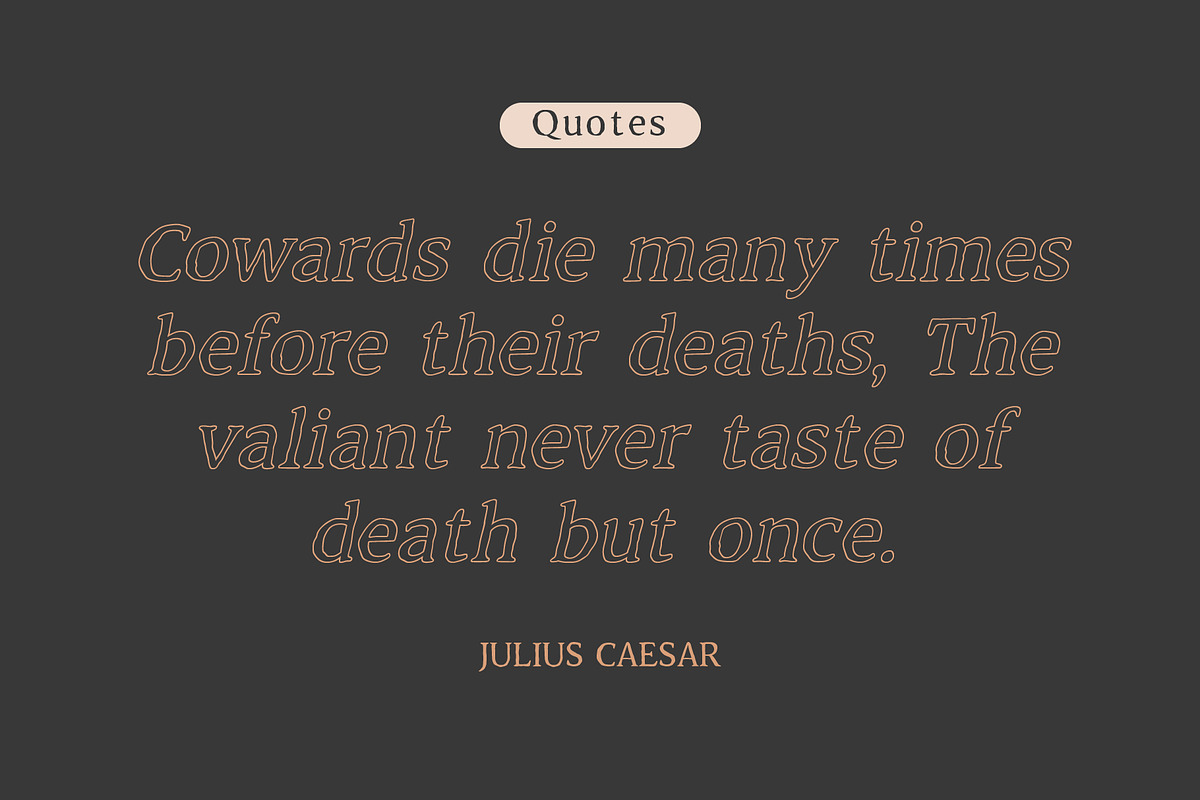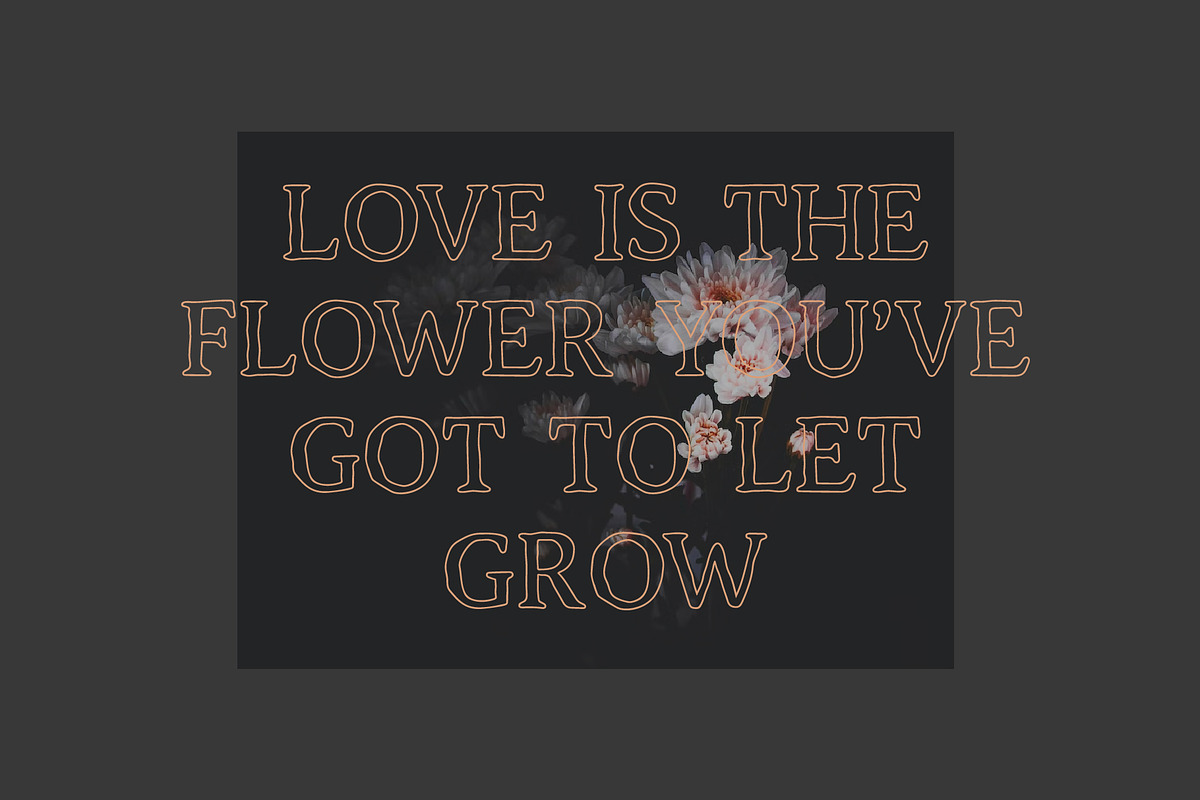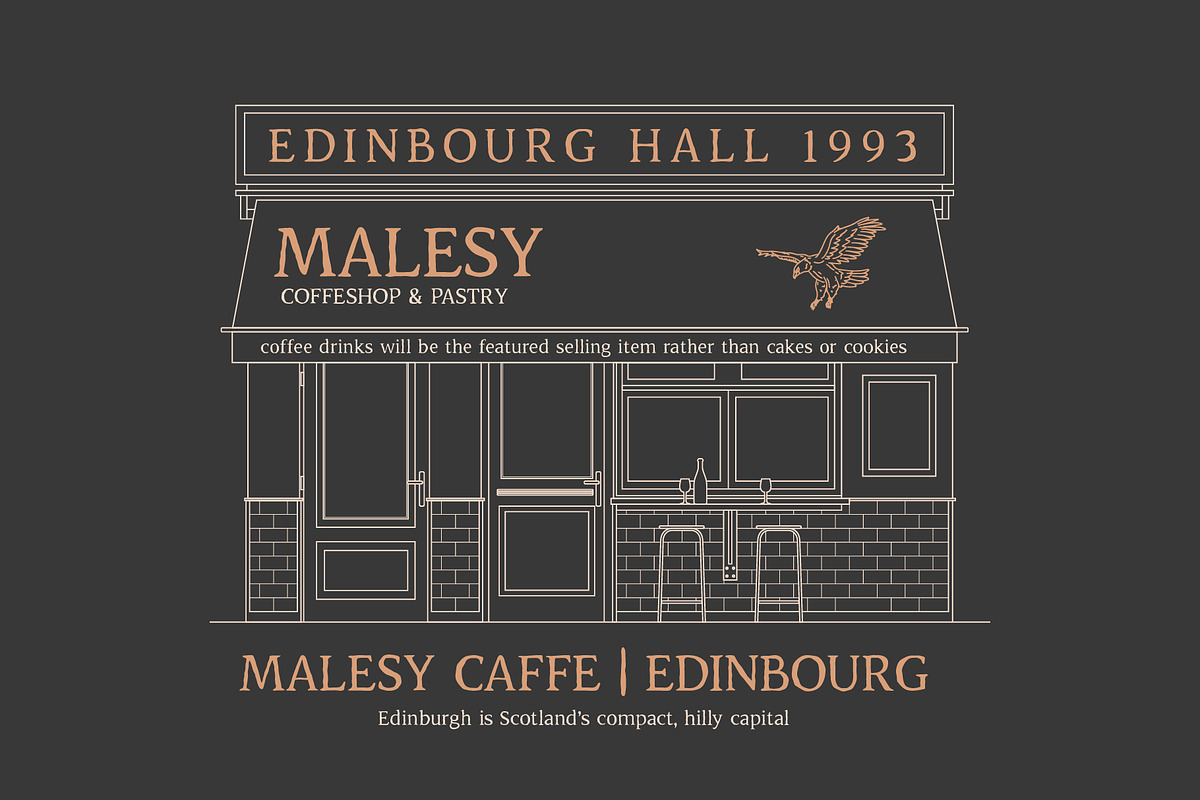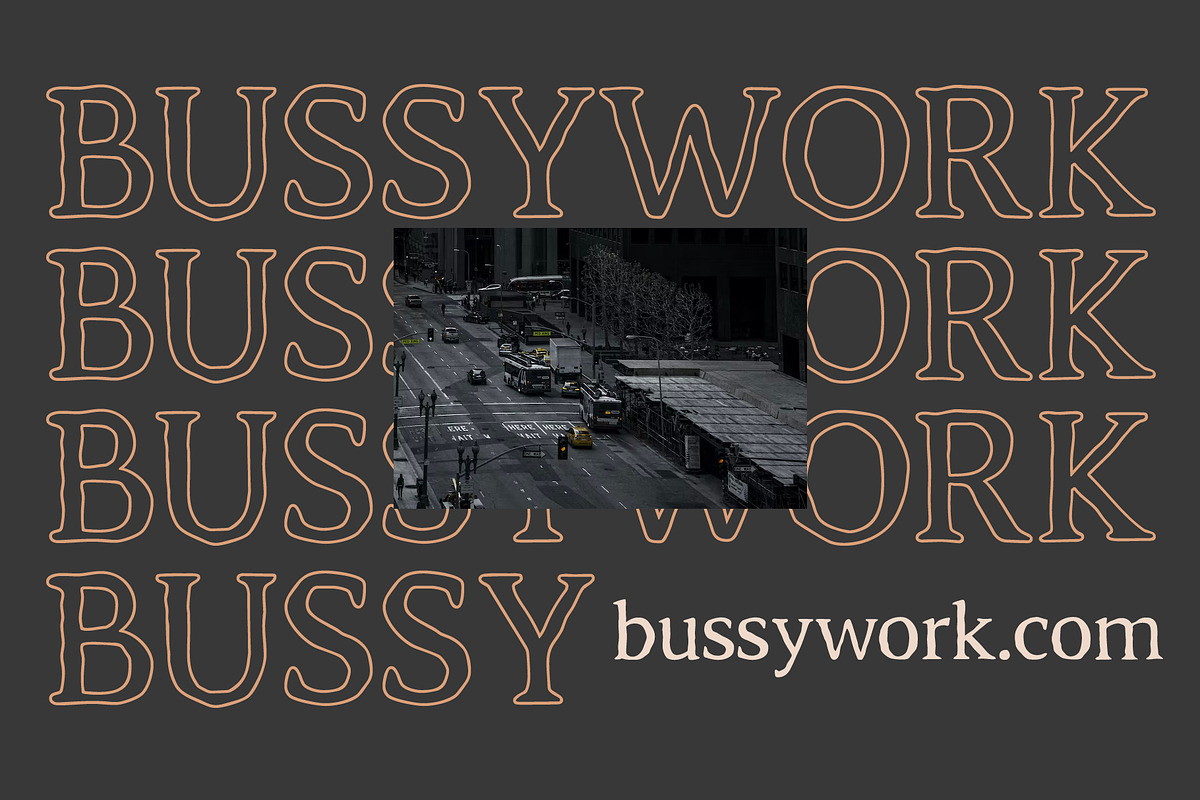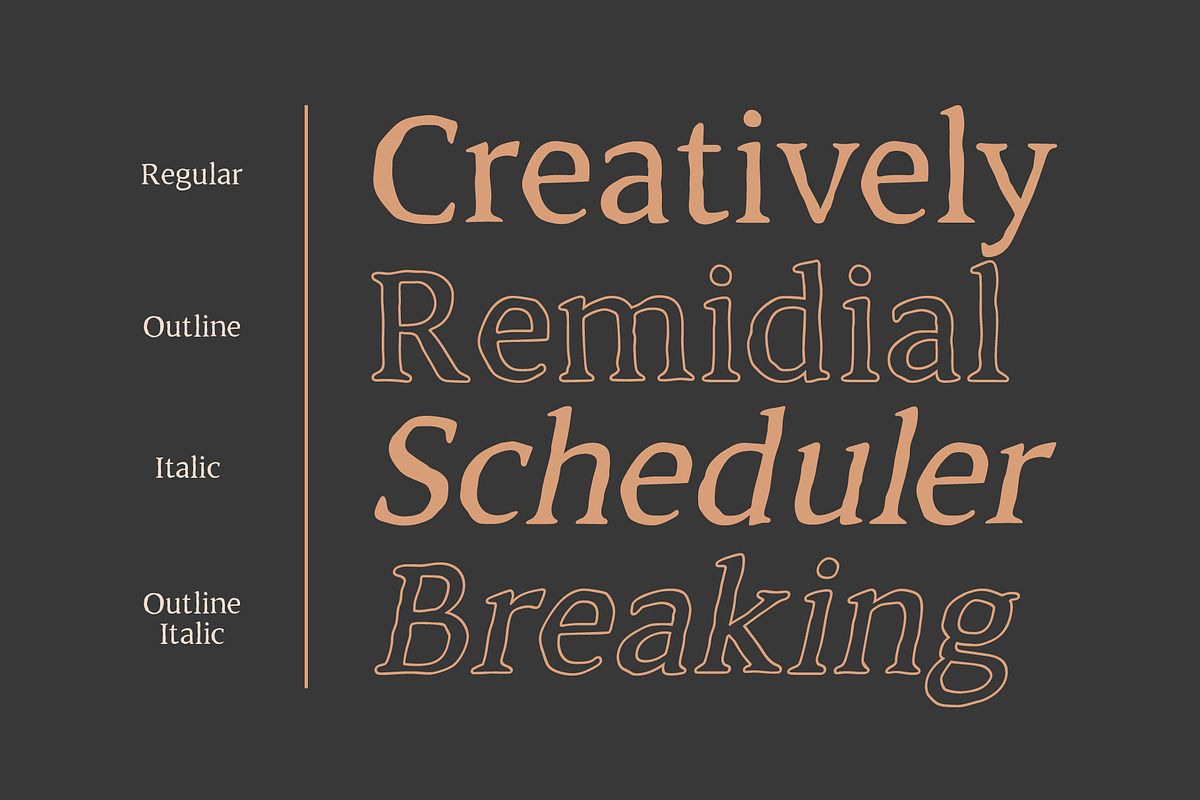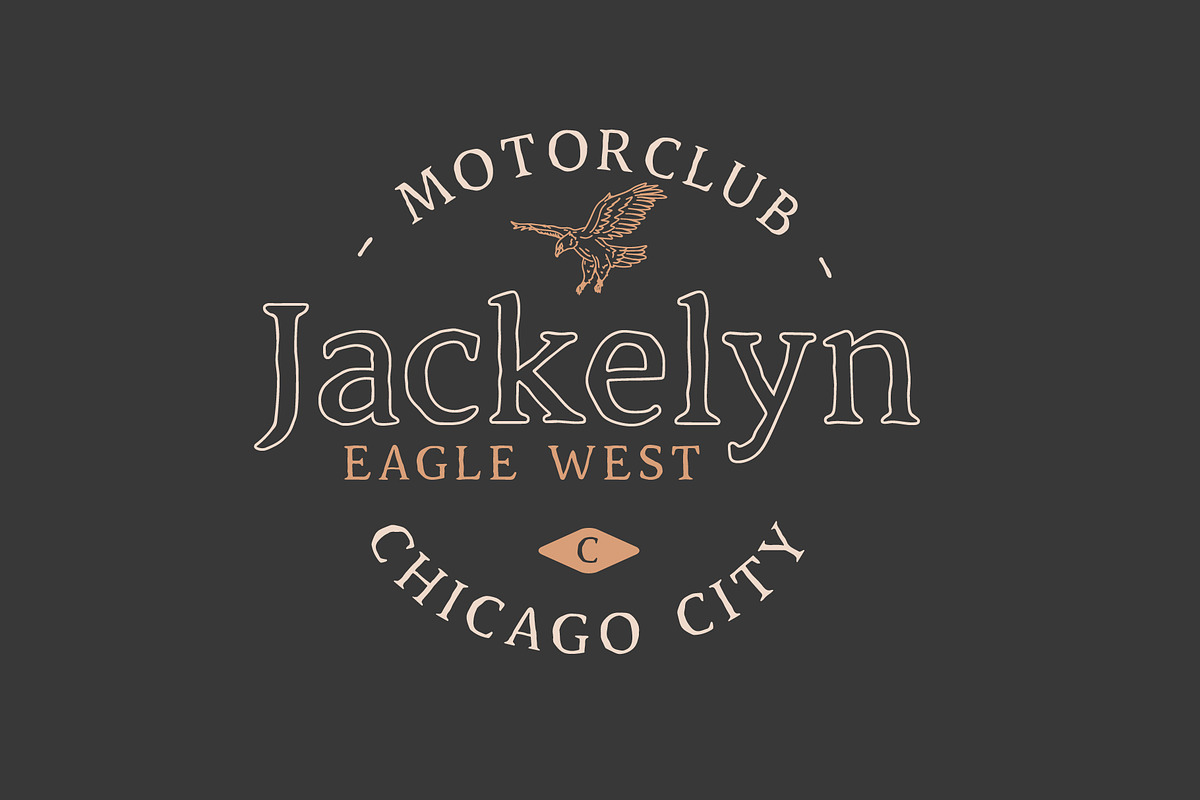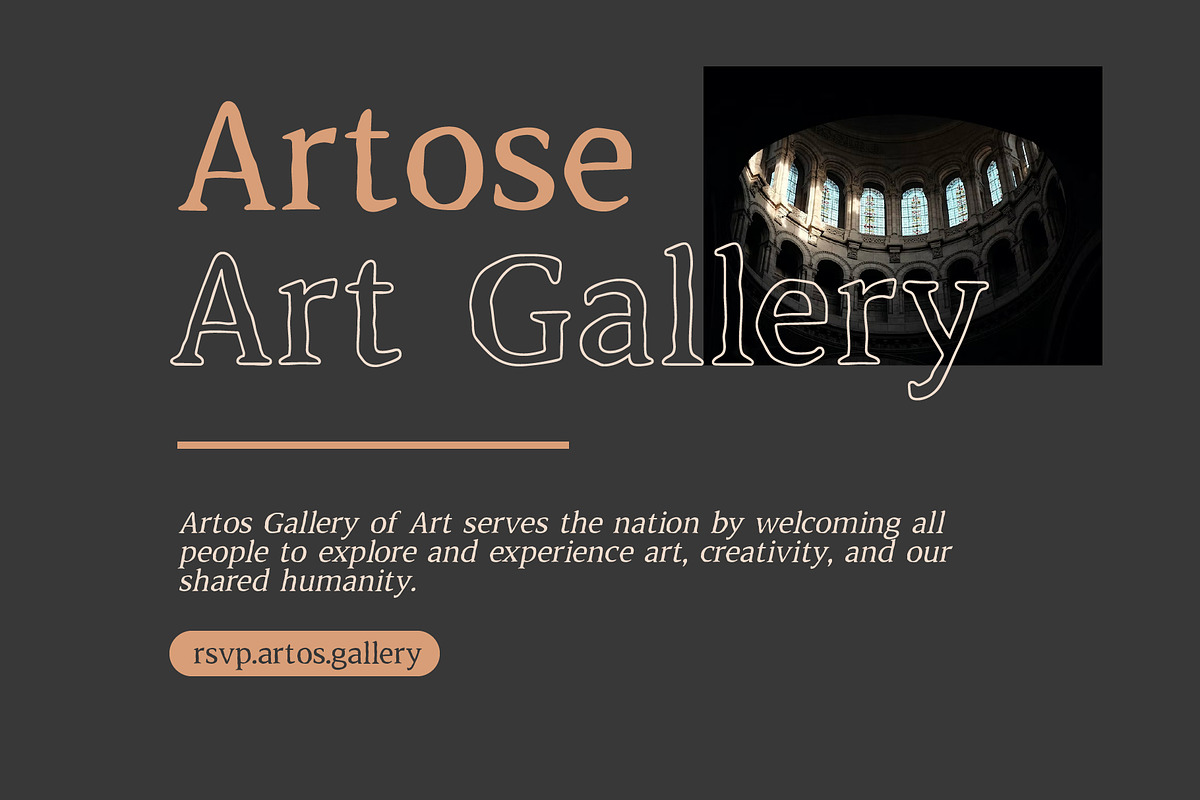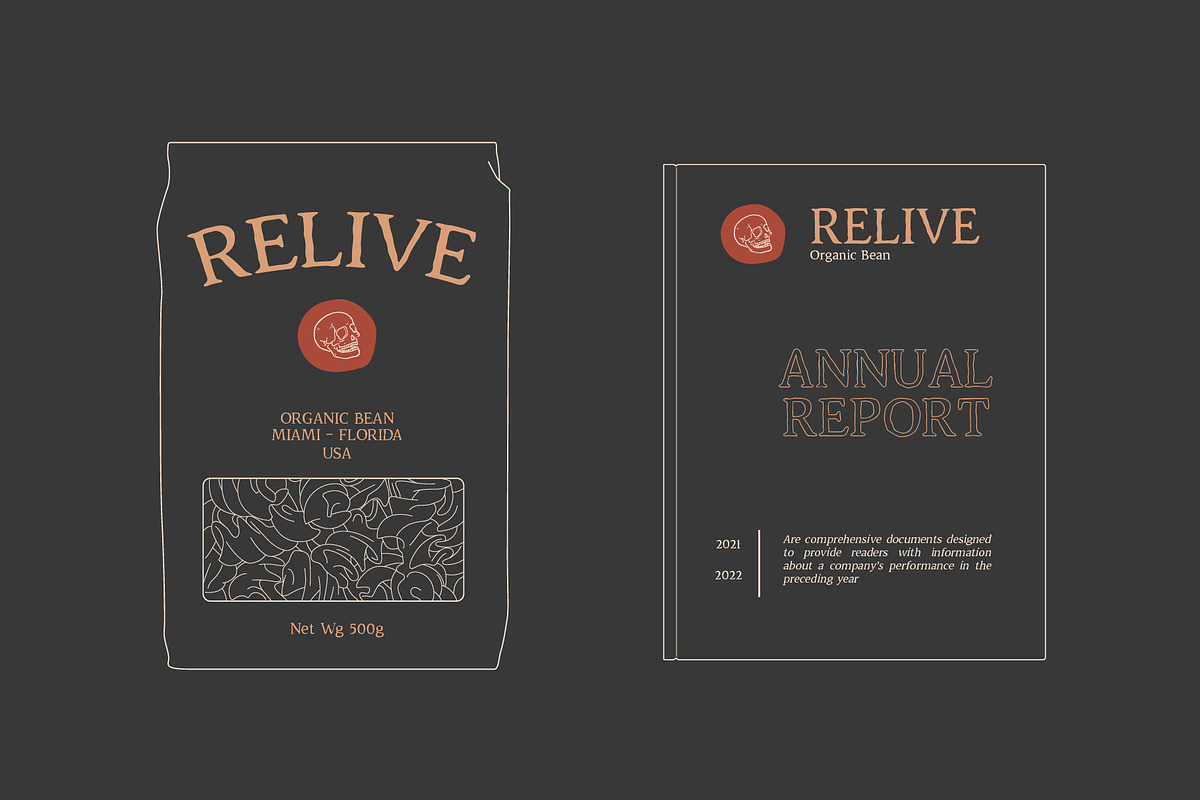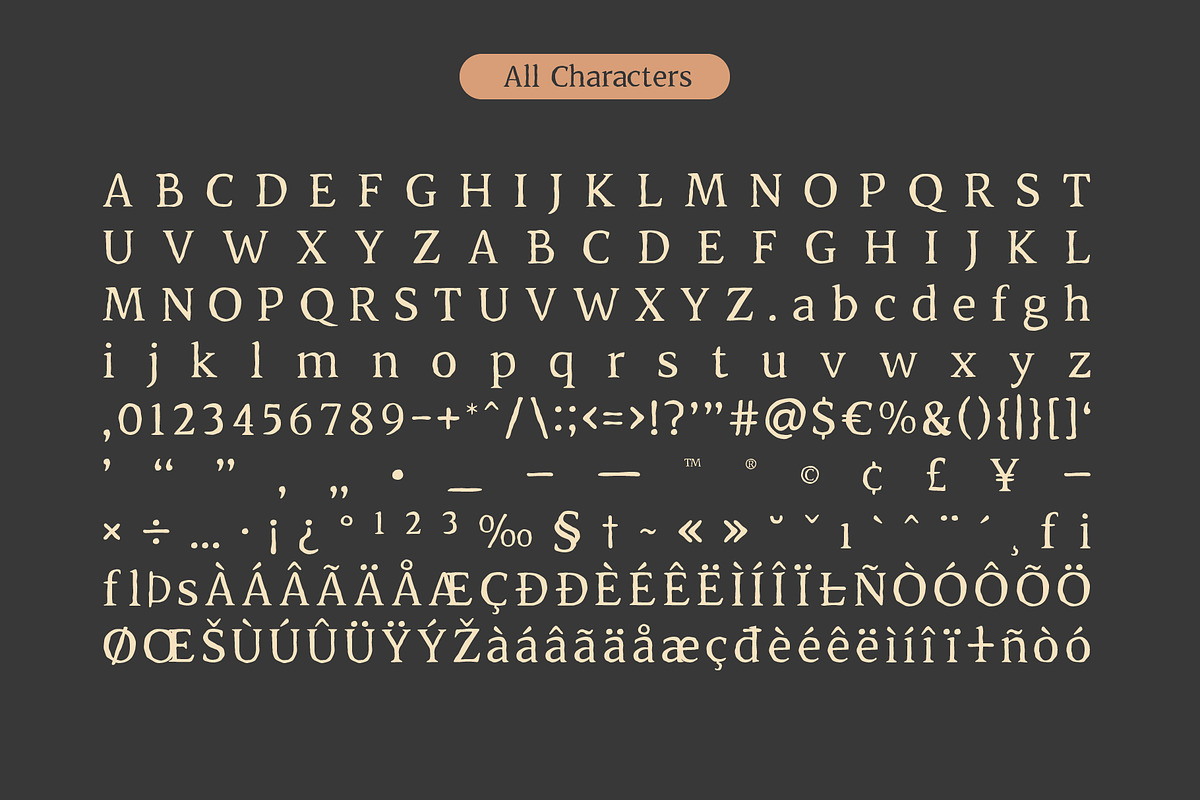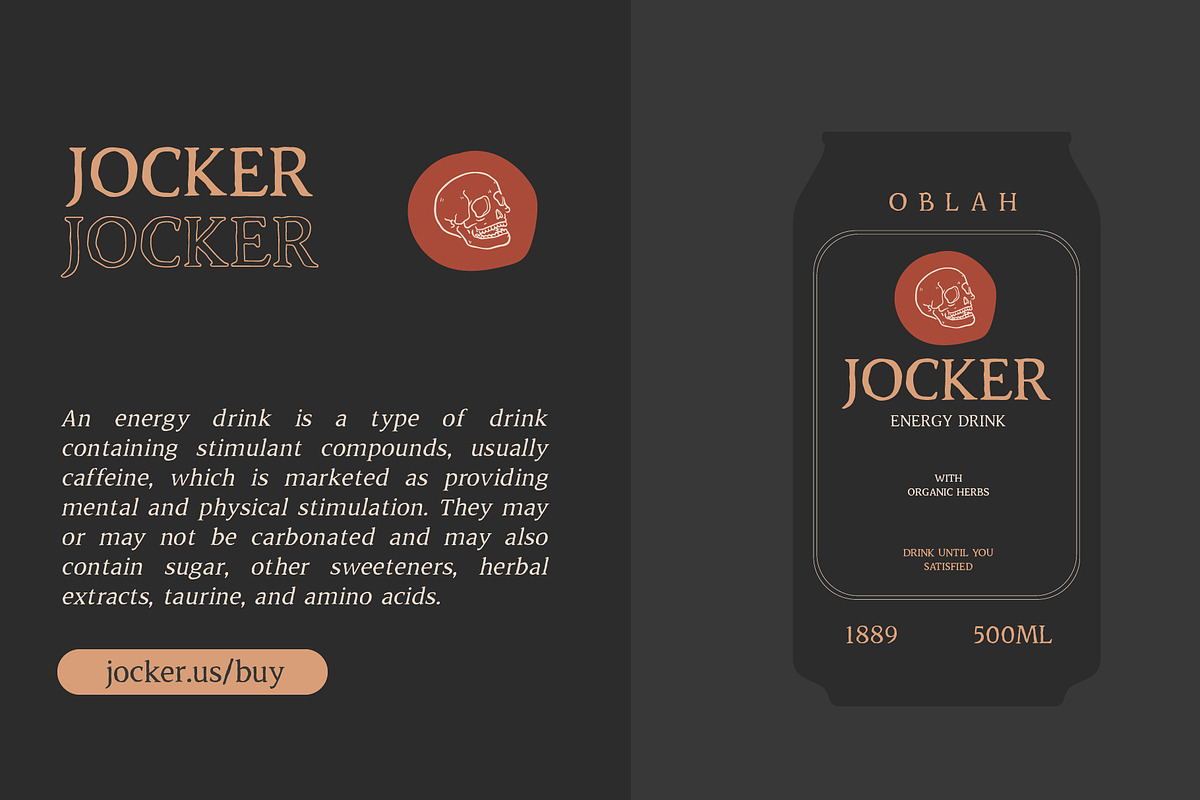
Malvery Vintage Typeface
Introducing Malvery Vintage Typeface
Malvery Vintage Typeface includes 4 Style Fonts. It can be used to create almost all types of design projects like print materials. Just use your imagination and some graphic design set in Extras, your project will become more alive and look great than ever with one of the Giroud Vintage Font.
You want to make a greeting card or a package design, or even a brand identity, craft design, any DIY project, book title, wedding font, pop vintage design, retro design or any purpose to make your art / design project look pretty and trendy? Feel free to play with all style of this font!
- Malvery Regular
- Malvery Outline
- Malvery Italic
- Malvery Outline Italic